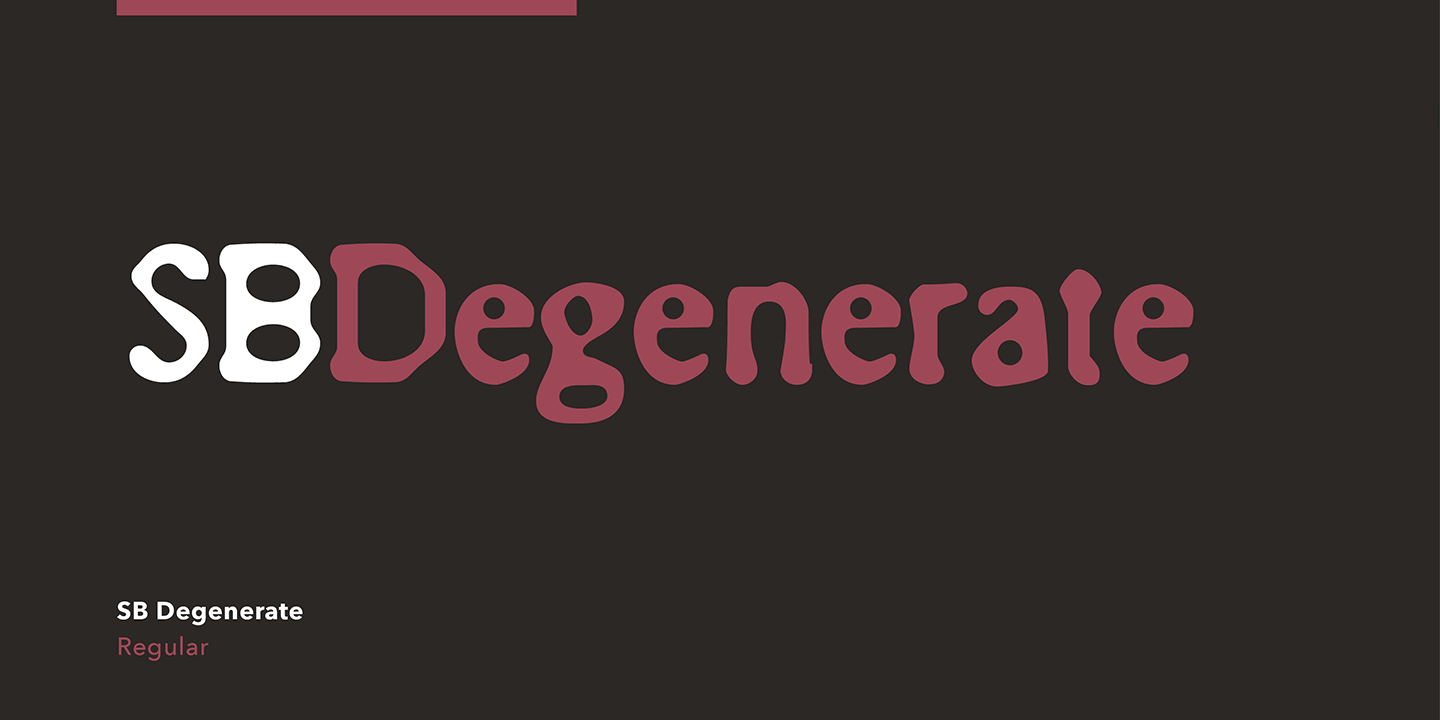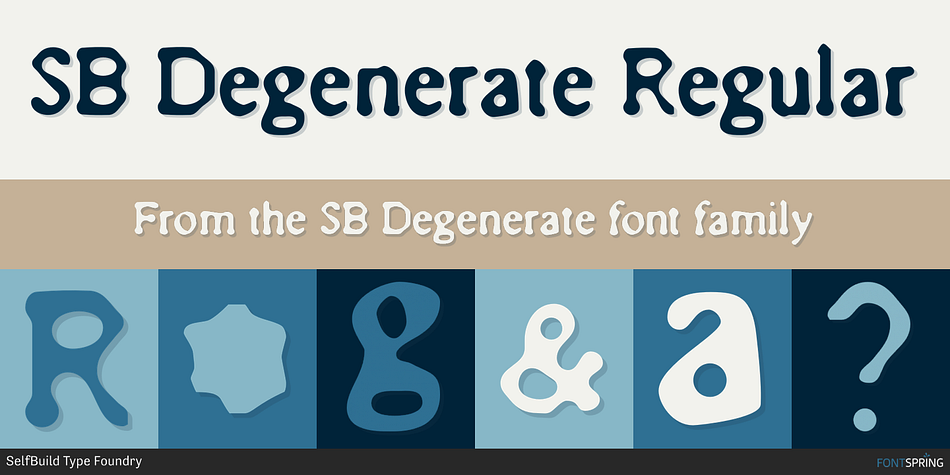
SB Degenerate Regular
SB Degenerate is a grunge font published by SelfBuild Type Foundry.
SB Degenerate is a nineties grunge font, and although it has a distinctly inky, printed look, this typeface was created using entirely digital methods. The original source material was the suitcase of low-resolution screen fonts for Times New Roman, which were taken into Photoshop and repeatedly blurred, filtered and brought back into focus, before being redrawn in vector form. The resulting glyphs have a distinctive style with some sticky looking terminals that look like they must be a result of some form of ink flow problem. The overall effect is of antiqued type, and the dirty, distressed style makes this typeface well suited to projects that need to convey a roughness or rawness of some kind.